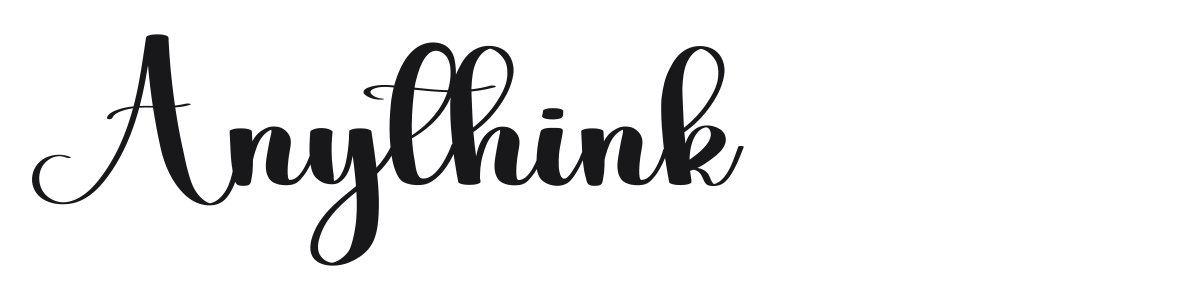
Anythink
by Harlek Studio
Anythink is a lively casual brush script with bold thick-thin stroke contrast and exuberant looping flourishes. The bouncy baseline and sweeping swashes give it an energetic handcrafted feel that reads immediately as warm and approachable. It suits branding, packaging, and social graphics where personality matters.